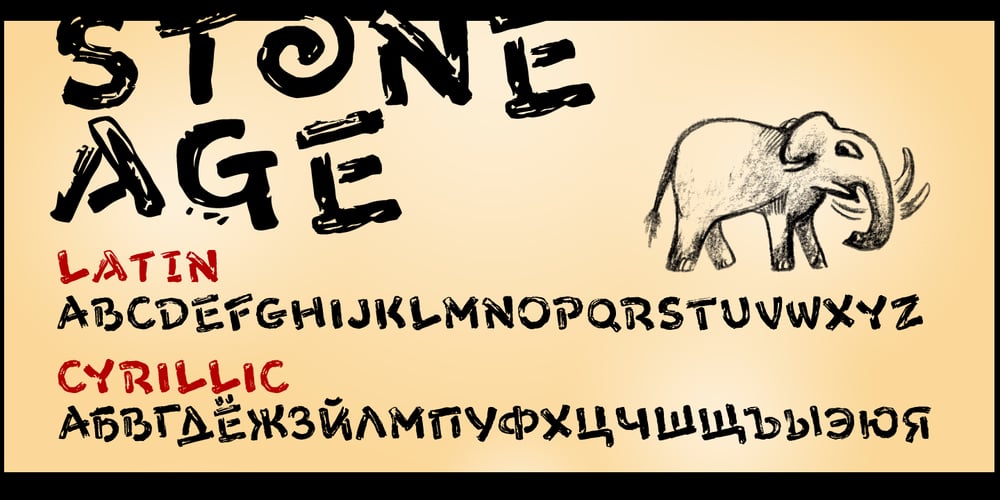
Stone Age Font Family was designed by Alexander Bobrov and published by Indian Summer Studio. Stone Age contains 1 styles and family package options. Stone Age Cave Art primeval prehistoric Neolithic primitive cavish petroglyphic genuine rough original early font.